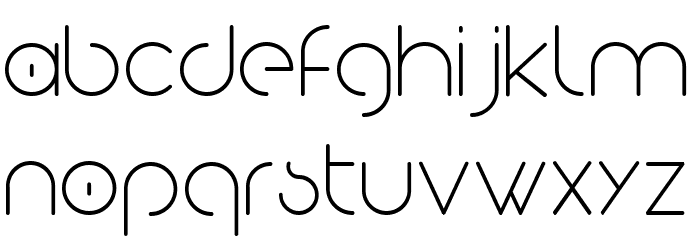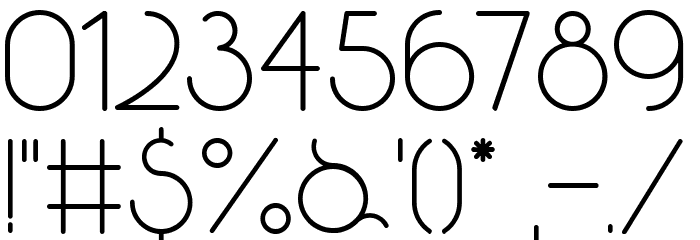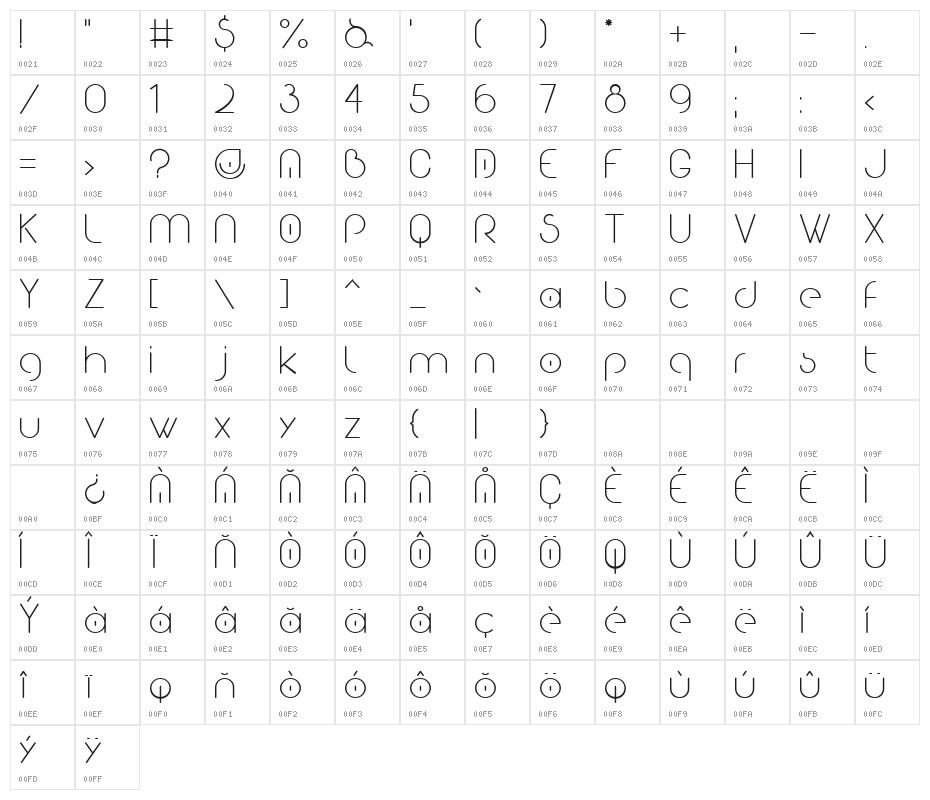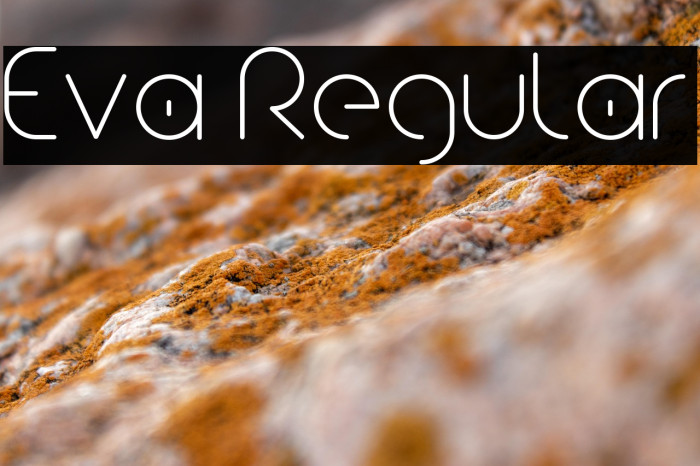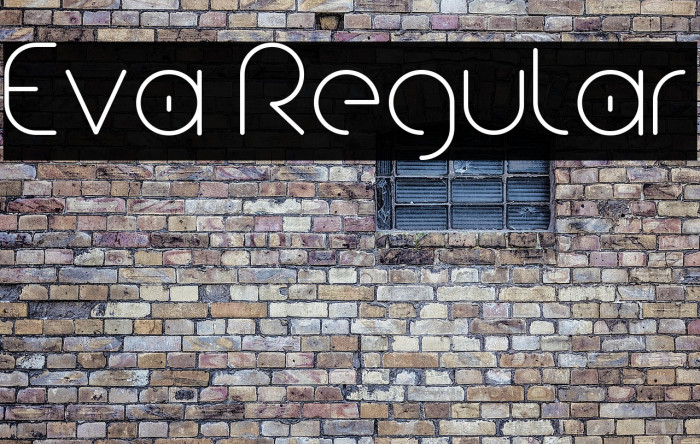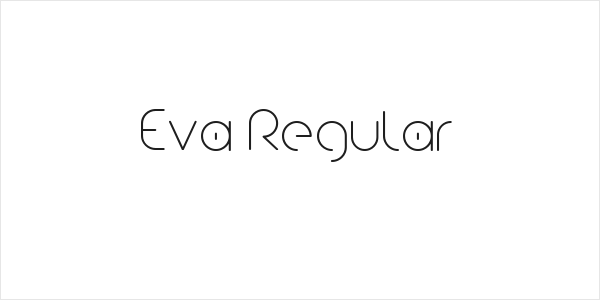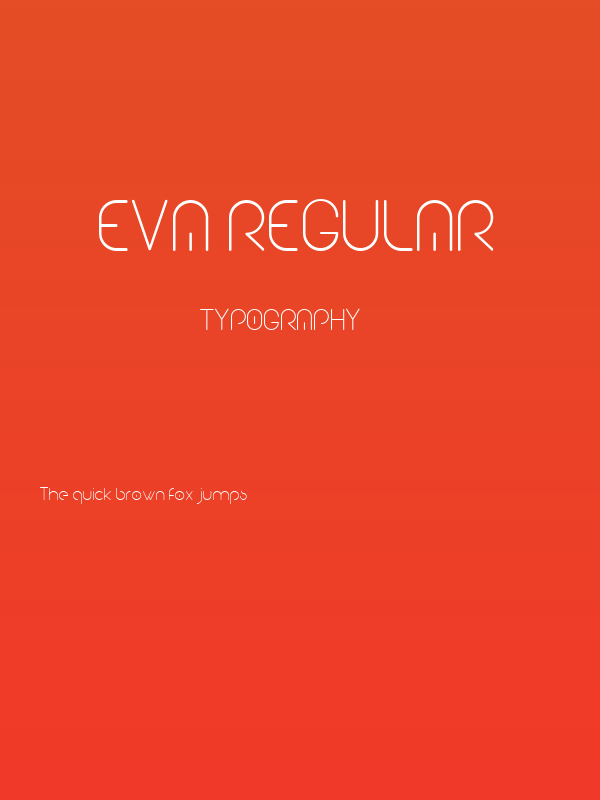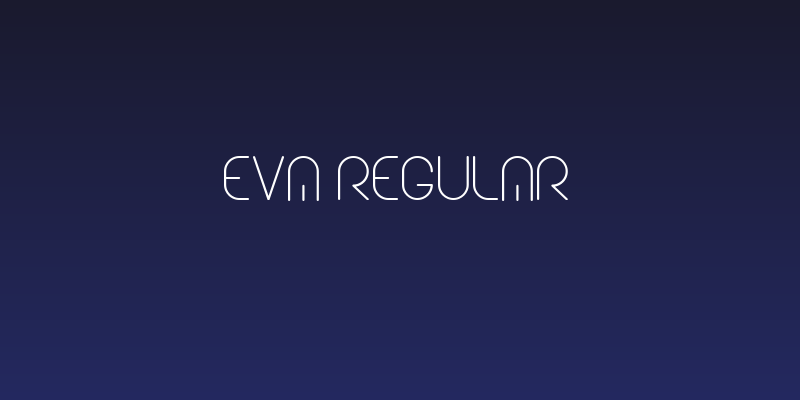
Eva Regular Font
This font features a modern, geometric design with clean lines and a minimalist aesthetic. The characters are constructed with uniform stroke widths, creating a harmonious and balanced appearance. The uppercase and lowercase letters maintain a consistent style, with rounded edges and a sleek, contemporary look. The numerals and special characters complement the alphabet with similar geometric forms, enhancing the overall cohesion of the typeface. This font's simplicity and elegance make it versatile for various design applications.
A modern, geometric font with clean lines and a minimalist style.
- Proposed Projects: Ideal for branding, logos, headlines, and modern web design projects.
- Category: Sans-Serif
- Use Case: Headlines, Logos, Branding